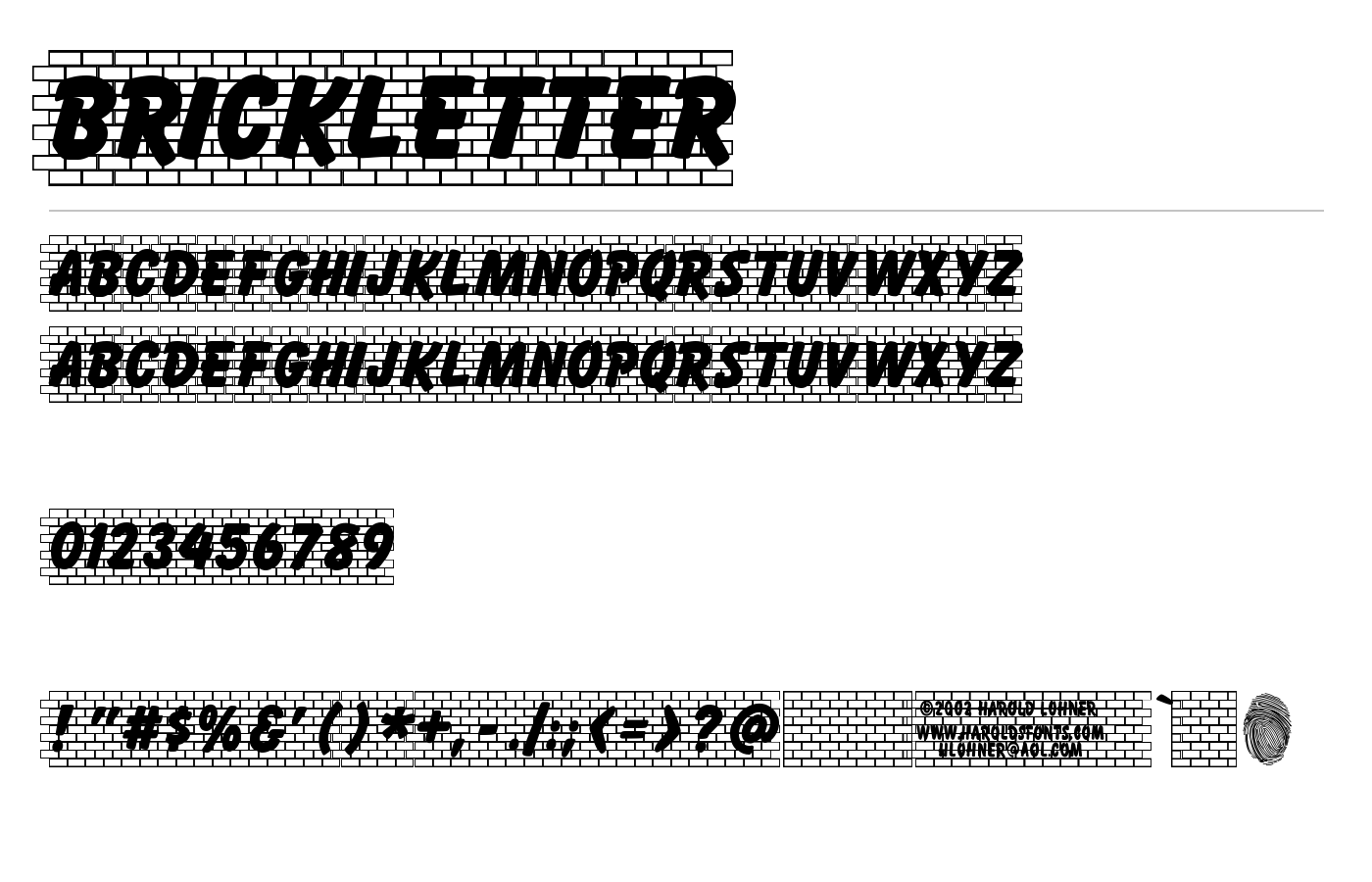
Brickletter is a bold, condensed sans serif font with a strong italic slant that gives it a dynamic and energetic feel. Its thick strokes and slightly rounded terminals make it suitable for impactful headlines and logos, conveying a sense of strength and modernity. This font works well for designs needing a bold statement with a touch of motion, such as sports branding, posters, and edgy editorial layouts.
Brickletter Font